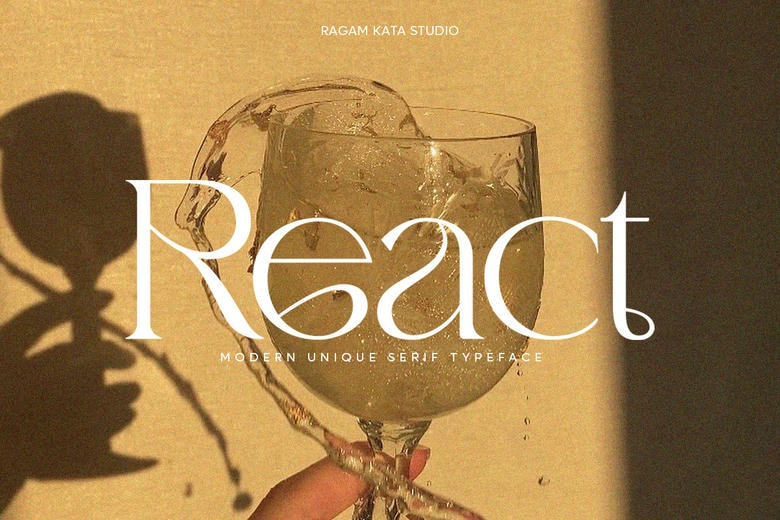
React Font
React is a beautiful modern serif typeface. It is perfect for elegant & luxurious logos, magazines, fashion brands, cosmetic brand, fashion promotions, modern advertising designs, invitation cards, art quotes, home decoration , book/cover titles, special events, and much more.
React Serif Font